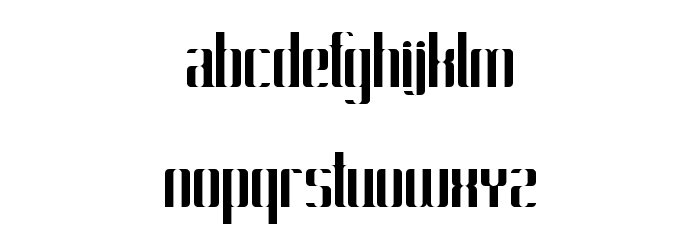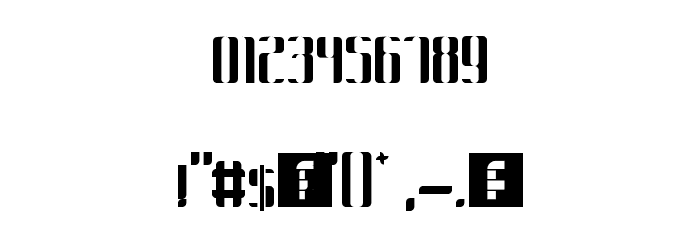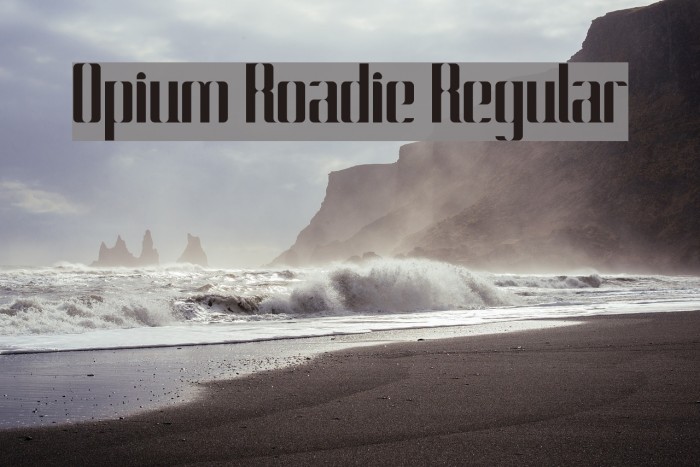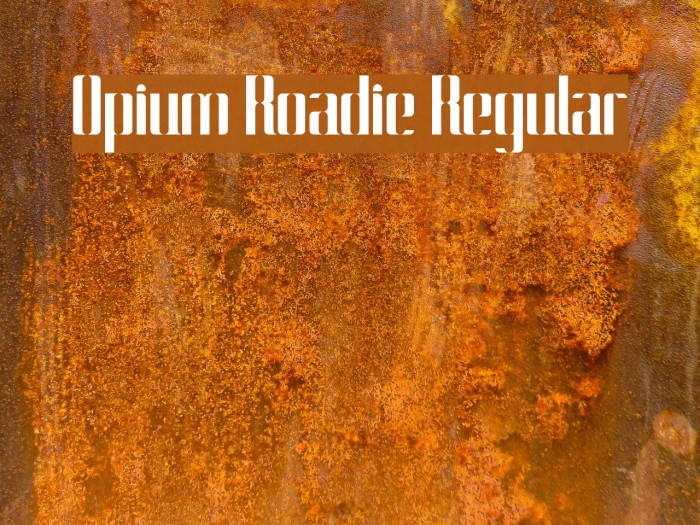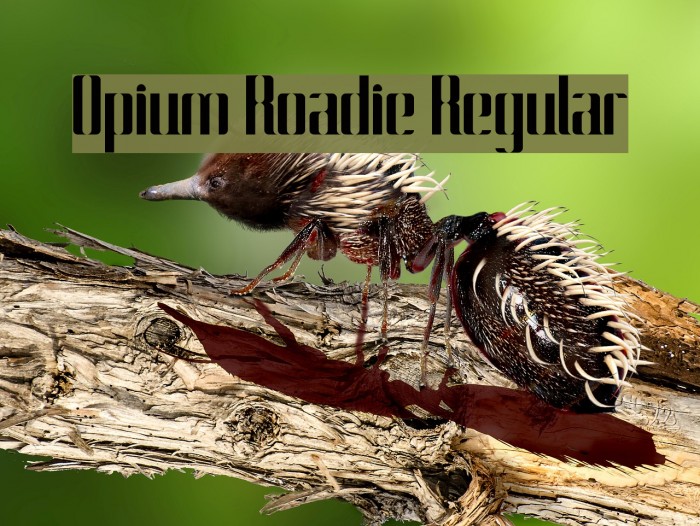
Opium Roadie Regular Font
This font features a bold and striking design with a modern, industrial aesthetic. The characters are constructed with a stencil-like appearance, characterized by breaks in the strokes that add a unique, fragmented look. The uppercase and lowercase letters maintain a consistent height, contributing to a uniform and structured feel. The numerals and special characters follow the same design principles, ensuring a cohesive visual style across all elements. The font's geometric shapes and sharp angles make it highly distinctive, suitable for projects that require a strong visual impact.
A bold, modern font with a stencil-like, industrial design.
- Proposed Projects: Ideal for branding, posters, album covers, and any design project that seeks a bold, modern aesthetic.